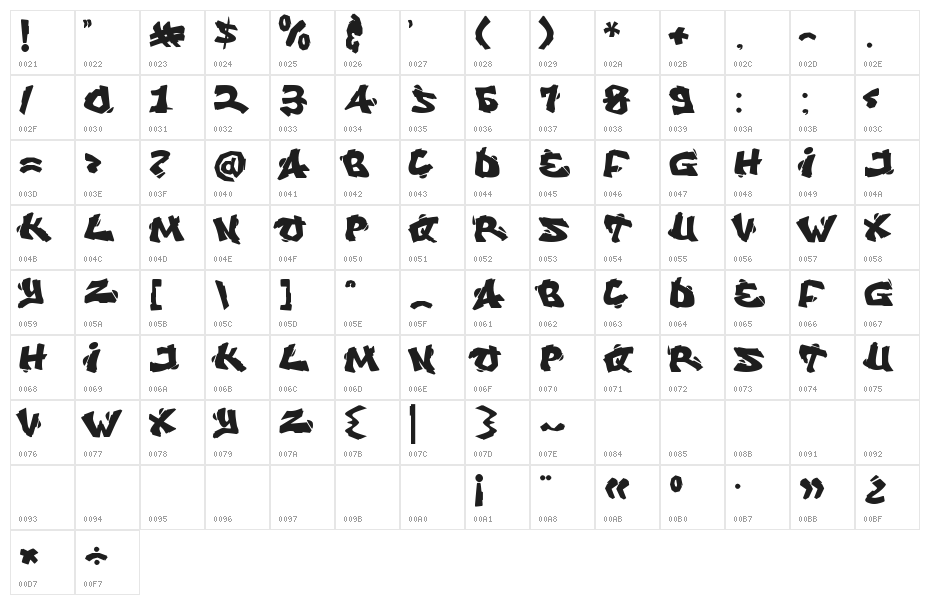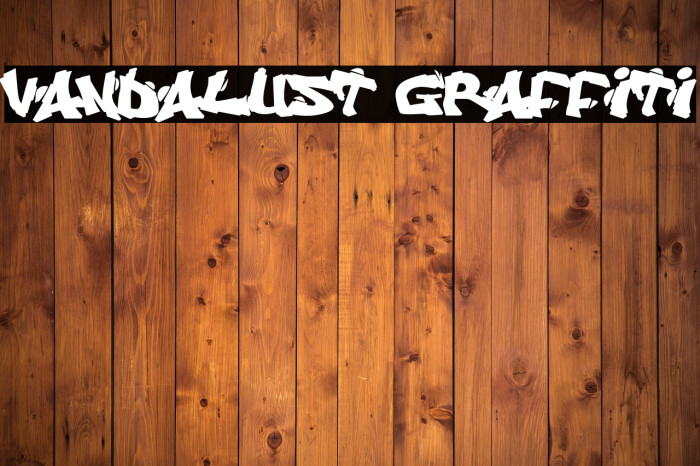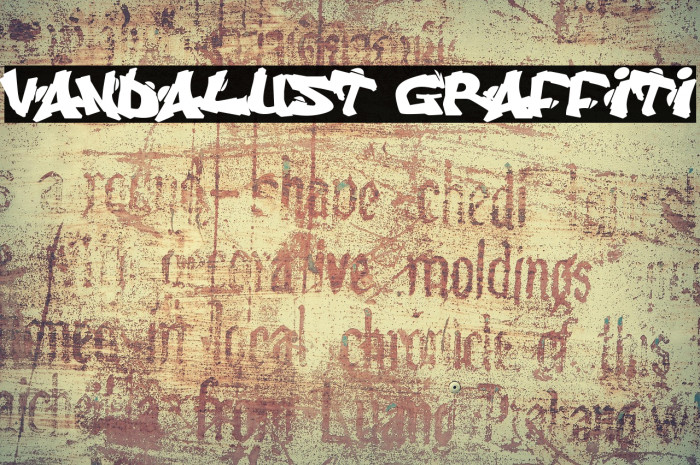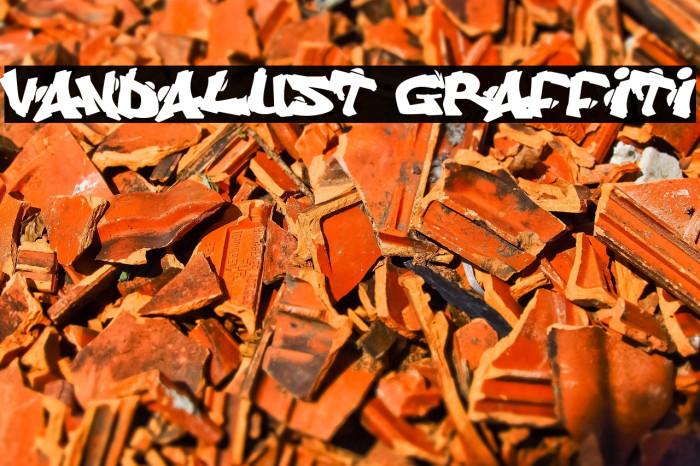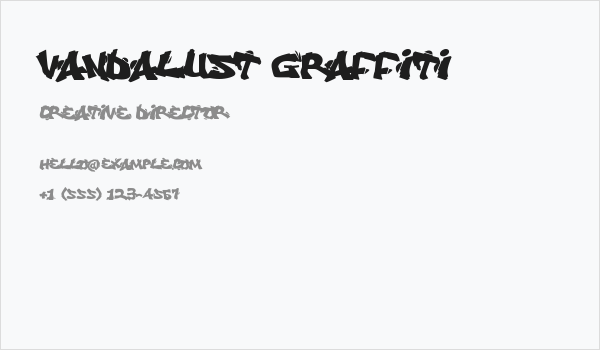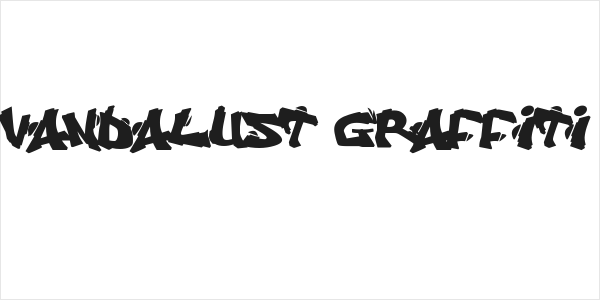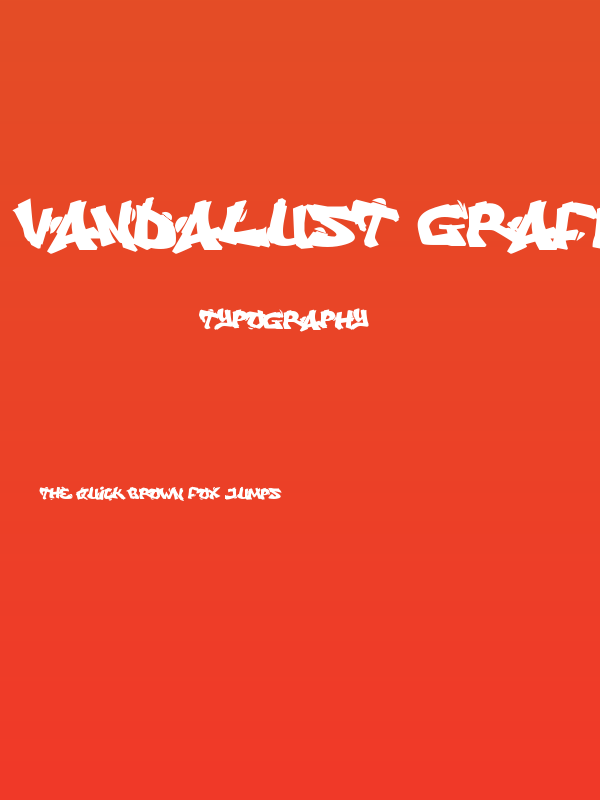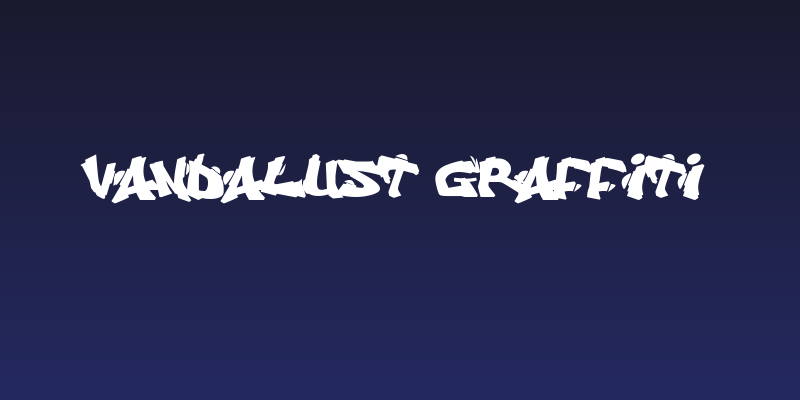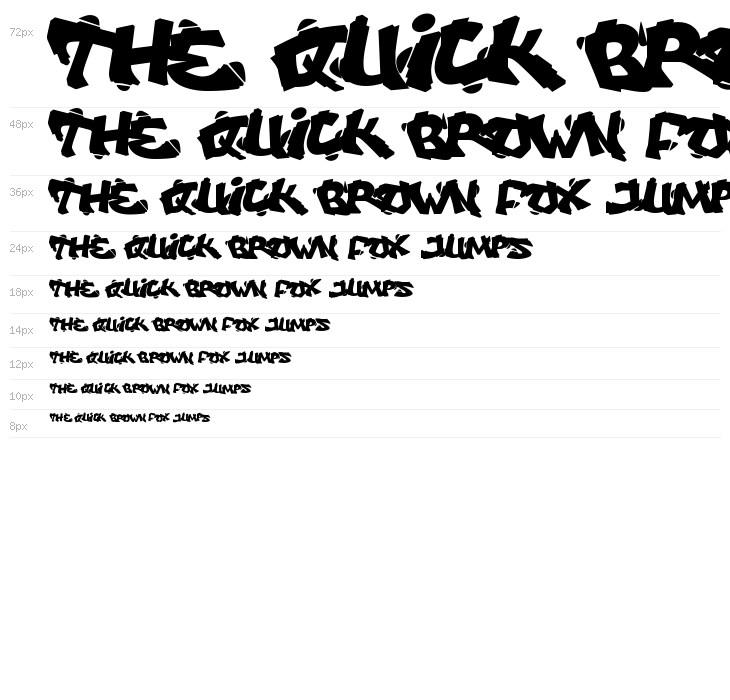
Vandalust Graffiti Font
Vandalust Graffiti Description
This font embodies the raw, energetic essence of street art with its bold, graffiti-inspired design. Each character is crafted with dynamic strokes and sharp angles, creating a sense of movement and rebellion. The uppercase and lowercase letters maintain a consistent style, while the numbers and special characters add to the font's versatility. The thick, uneven lines and irregular spacing give it an authentic, hand-sprayed look, making it perfect for projects that require a bold, urban aesthetic.
| Overall Style | Urban, Energetic, Rebellious |
| Proposed Projects | Ideal for street art murals, urban-themed posters, edgy branding, and music album covers. |